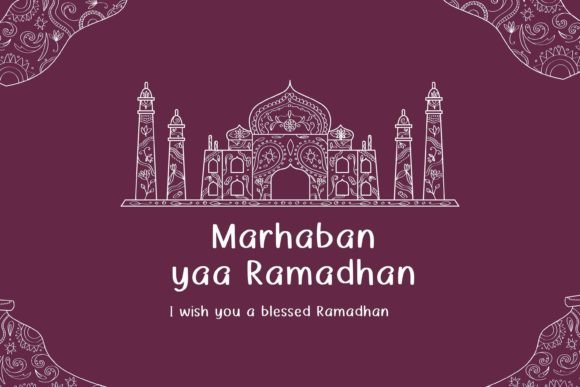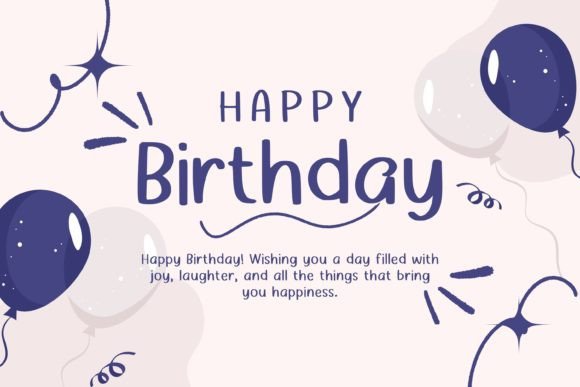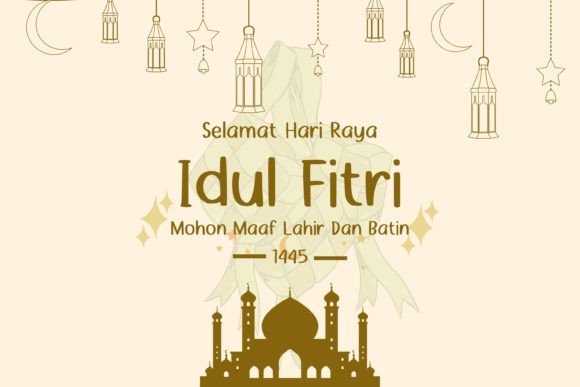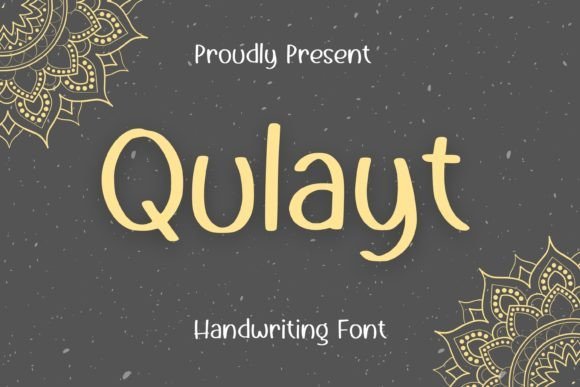
Introduction to Qulayt Font
Discover the sophisticated style of Qulayt, a uniquely cool handwriting font.
Perfect for infusing charm into your crafting projects and lending an artistic flair to your brand identity This font effortlessly enhances your social media and marketing communications, guaranteeing a memorable aesthetic that stands out in any platform.
Qulayt Font offers exceptional quality and versatility, making it a valuable addition to your design toolkit. Whether you’re creating for personal projects or commercial use, Qulayt Font delivers professional results.